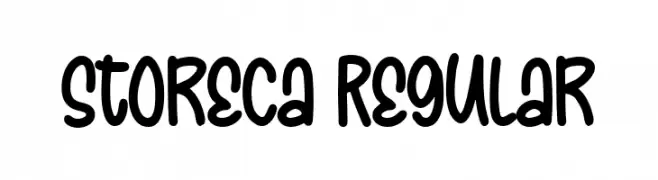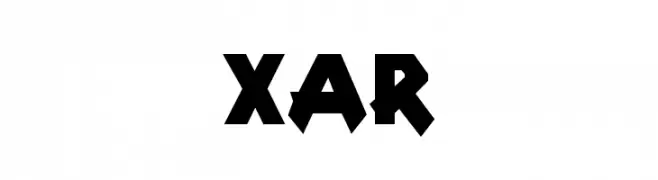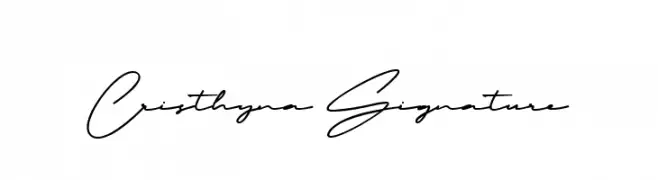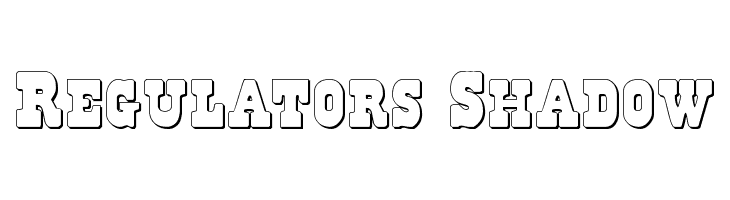
A bold, playful handwritten font with rounded edges and a casual style.
A bold, hand-crafted font with a rugged and organic feel.
A bold, geometric font with sharp angles and a modern, industrial feel.
A playful, casual handwritten font with uneven strokes and an organic flow.
An elegant, cursive font with fluid strokes and a sophisticated style.
A bold, dynamic script font with interconnected, flowing letters and a modern, playful style.
A bold, playful font with a hand-drawn, whimsical style.
A bold slab serif font with strong, geometric characters and block-like serifs.